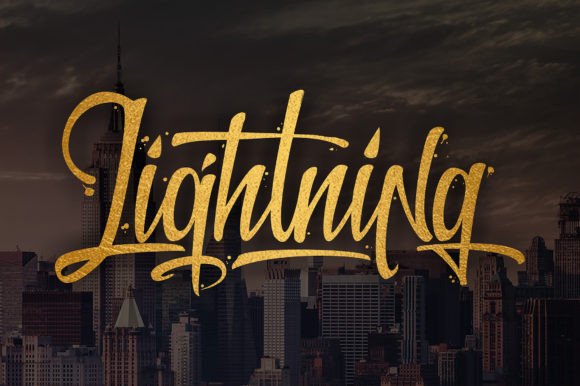
Ashtone Font
Ashtone is a new and elegant handwritten font perfect for any design you wish to create! Add it to your logos, cards, T-shirts, shopping bags, book titles, magazine covers, and many more, and make them outstanding!